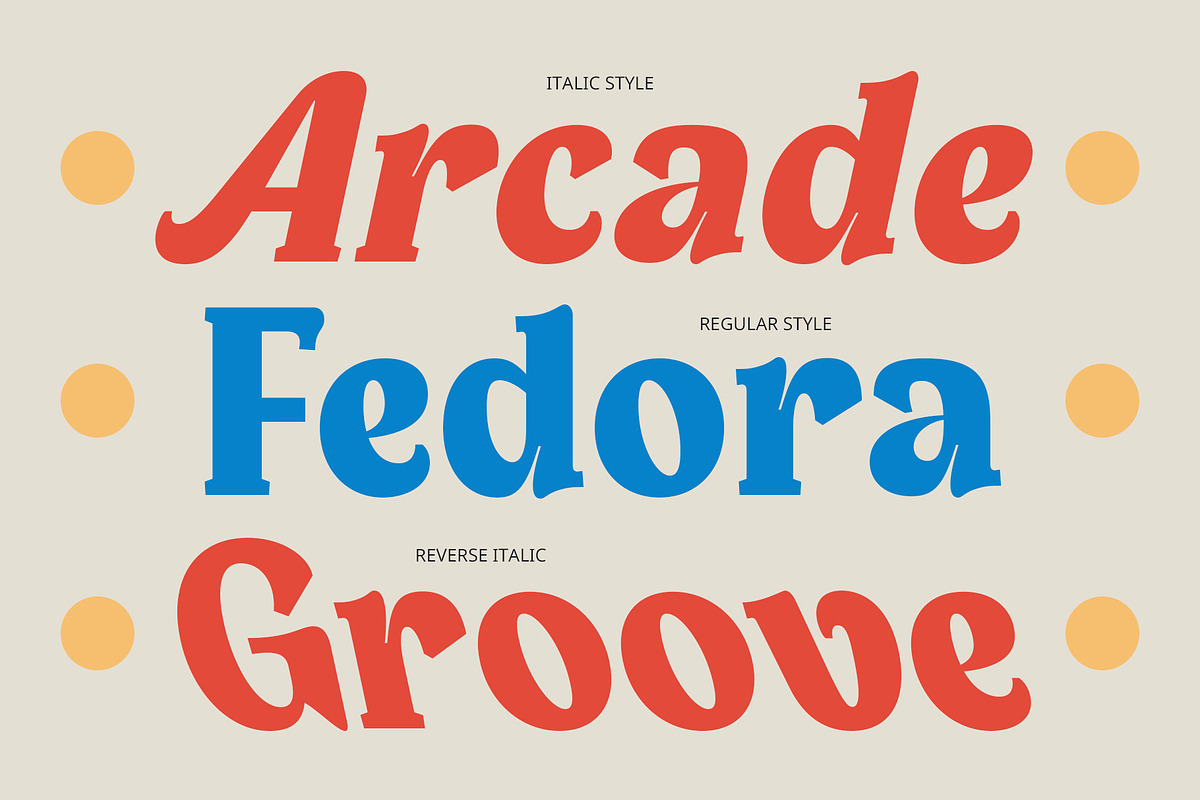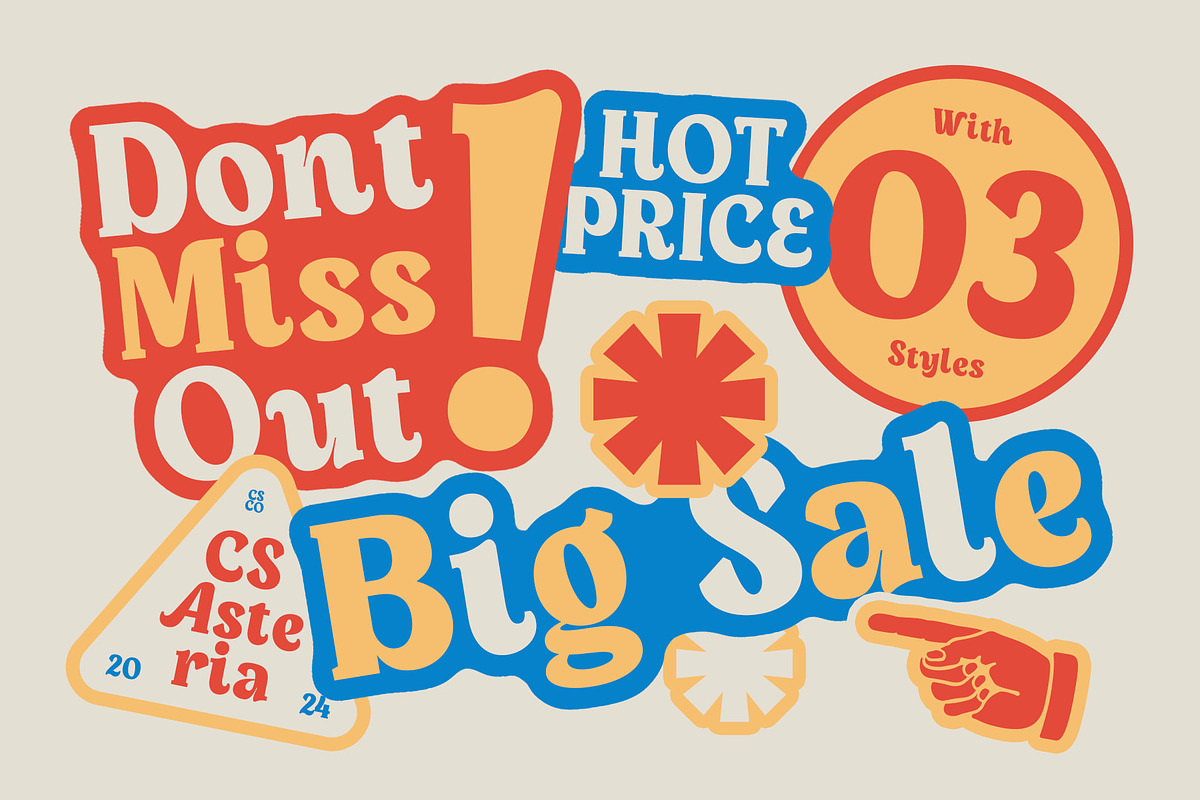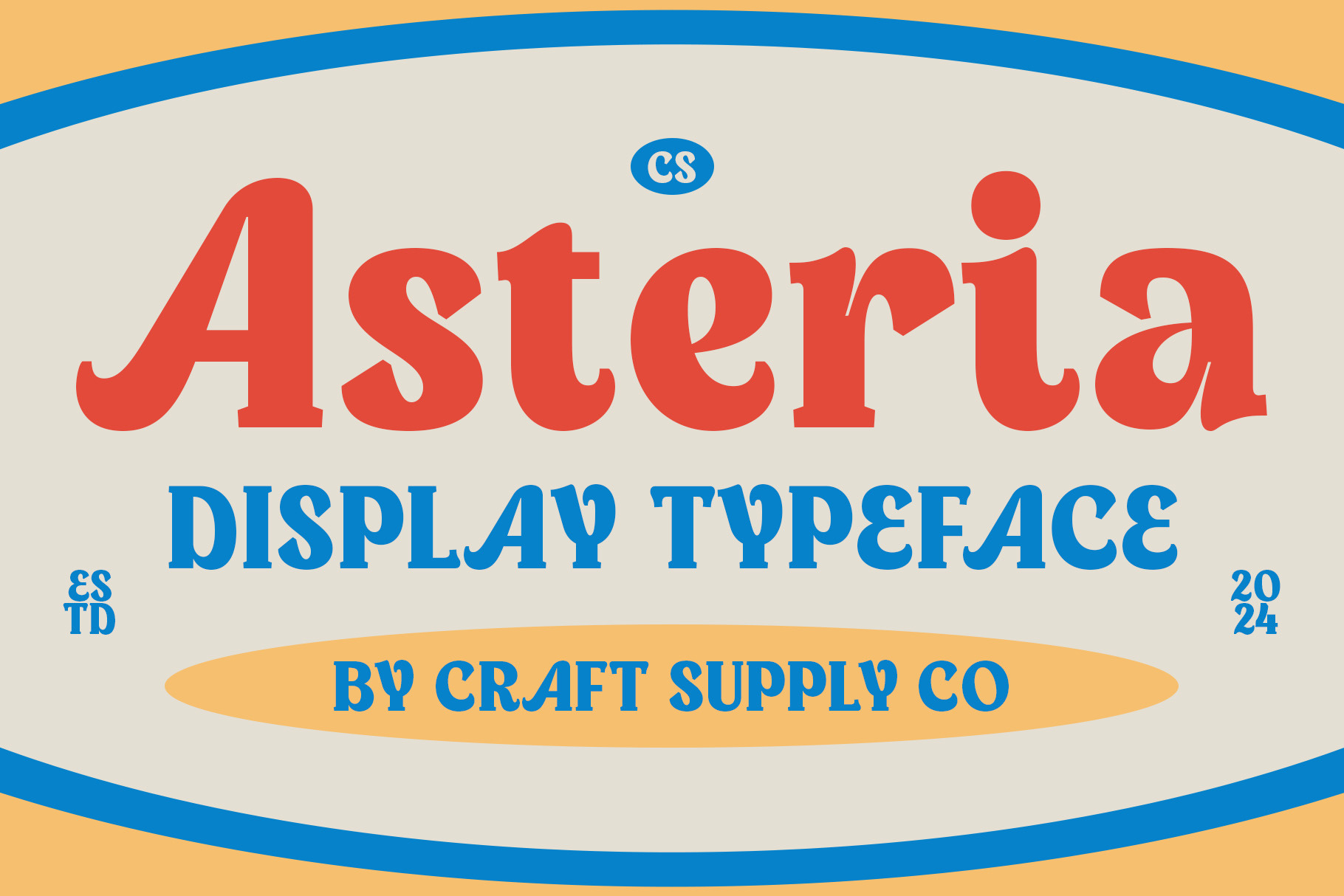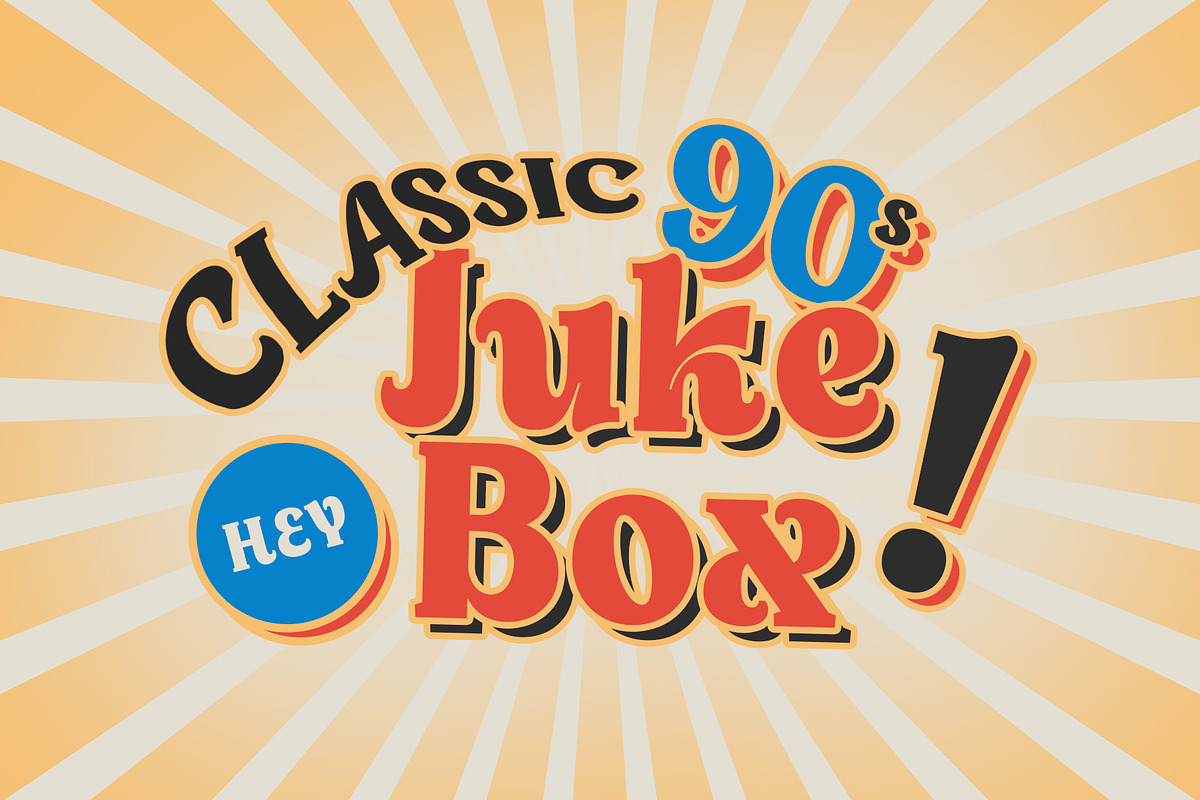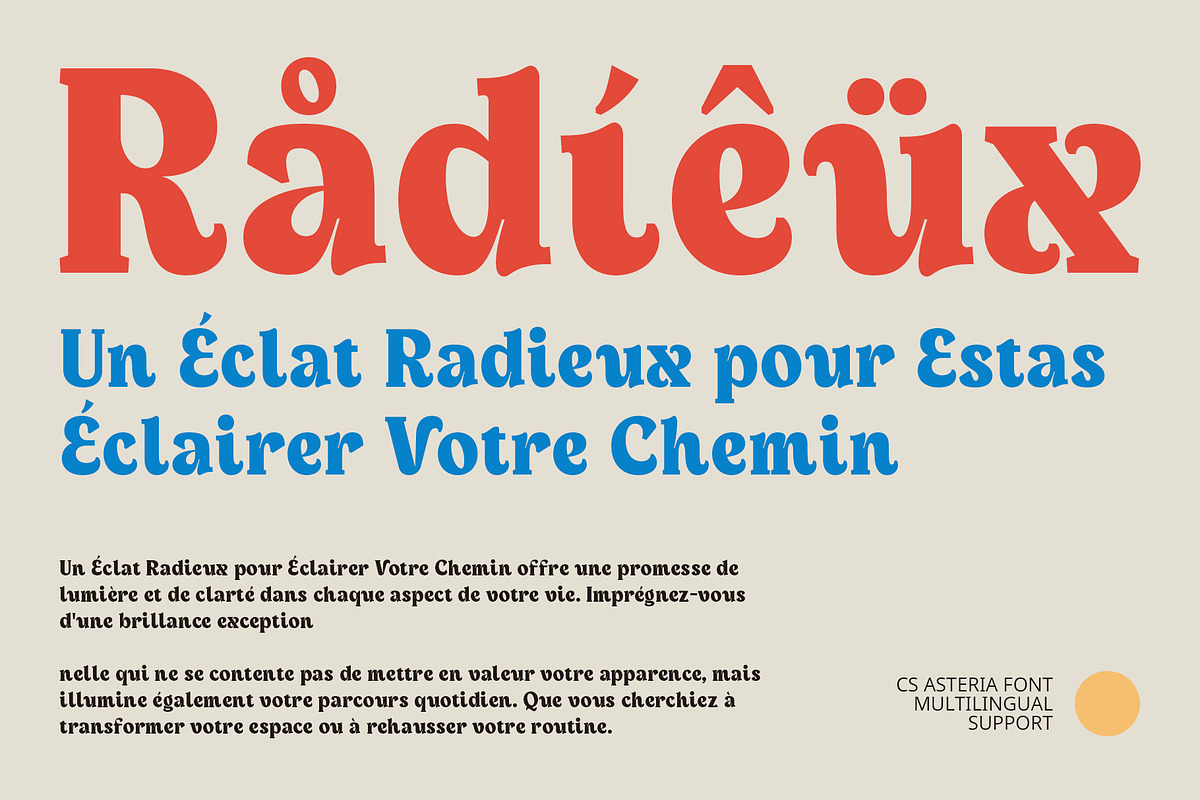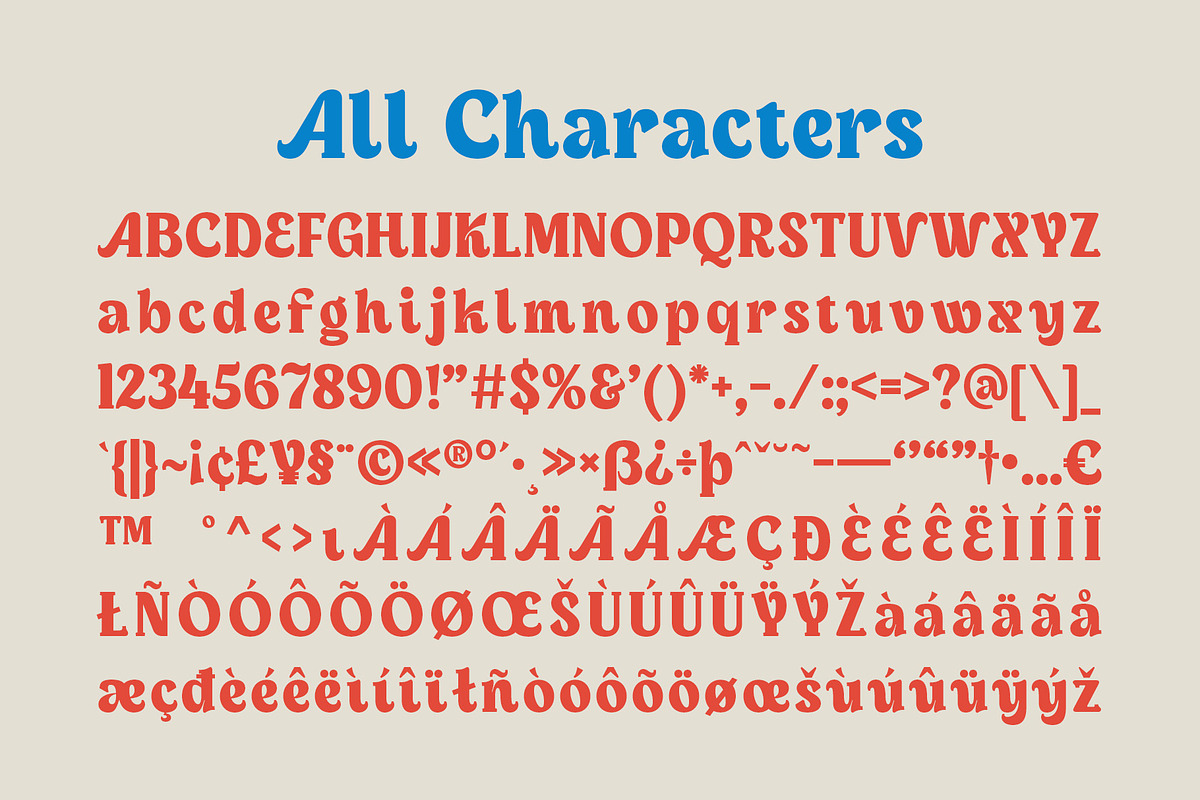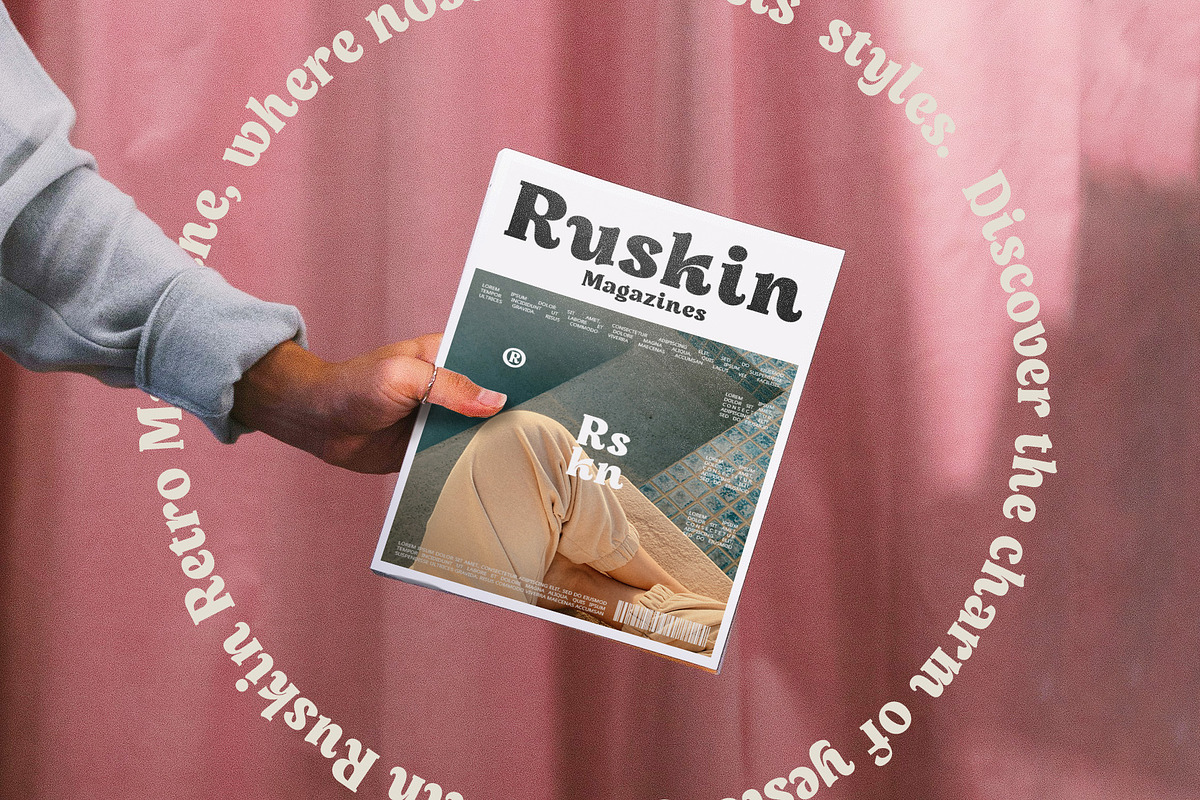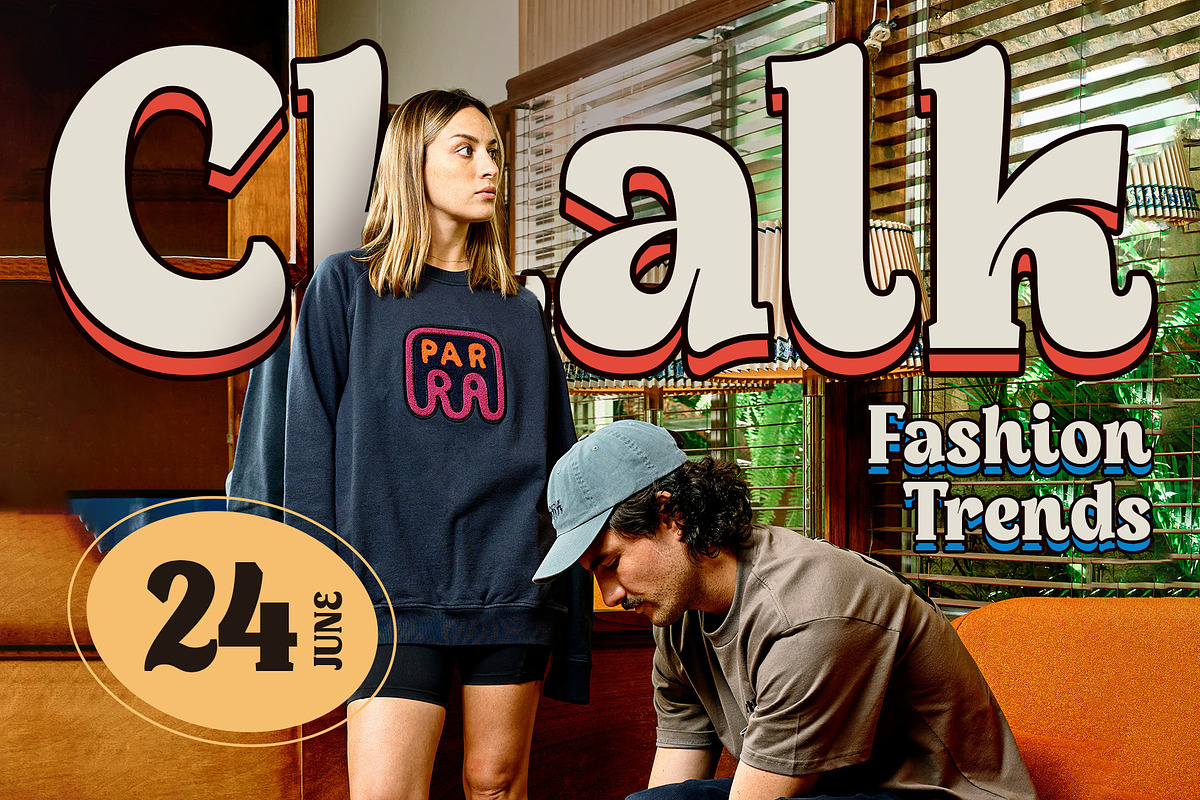
CS Asteria – Classic Font
CS Asteria – Classic Font: Timeless Boldness with a Retro Flair
Bold Display Serif with 90s Classic Style CS Asteria – Classic Font is a bold display serif typeface that channels the quintessential essence of 90s classic design. Its robust letterforms and character-rich details exude a traditional and retro charm, perfect for projects that require a touch of nostalgic sophistication. The font’s design captures the spirit of the era with its strong presence and distinctive character, making it a standout choice for a variety of applications.
Nostalgic Design Aesthetic CS Asteria – Classic Font excels in evoking a nostalgic ambiance. Its 90s classic style brings a sense of vintage allure to modern designs, making it ideal for retro-themed posters, old-fashioned product packaging, and nostalgic branding efforts. The font’s design aesthetic not only captures the essence of a bygone era but also adds a layer of depth and character, enriching the overall visual experience.
Versatile for Retro and Traditional Applications Whether you’re crafting a vintage-inspired advertising campaign or designing classic product packaging, CS Asteria – Classic Font offers the perfect balance of retro charm and traditional elegance. Its bold presence and timeless design make it versatile for various applications, ensuring your projects stand out with a sophisticated, nostalgic flair that resonates with audiences seeking both authenticity and style.
- CS Asteria Regular
- CS Asteria Italic
- CS Asteria Reverse Italic